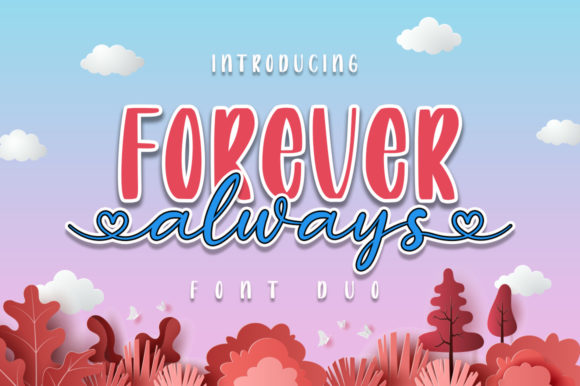
**Introducing Always Forever: The Ultimate Font for Unforgettable Wedding Invitations and More**
Embark on a typographic journey that culminates in the creation of breathtaking wedding invitations, thank-you cards, and an array of other captivating designs with Always Forever. This exquisite duo-styled handwritten font exudes a harmonious blend of charm and elegance that will elevate your creations to new heights.
**A Symphony of Handwritten Elegance**
Always Forever captivates with its graceful strokes and delicate flourishes, evoking the beauty of handwritten artistry. Each letter dances across the page with an enchanting allure, inviting your guests to immerse themselves in the warmth and intimacy of your special day.
**A Multitalented Masterpiece**
Beyond the realm of wedding invitations, Always Forever shines as a versatile font that lends its charm to a multitude of designs. Create enchanting greeting cards that convey heartfelt messages, design eye-catching logos that exude professionalism, or craft stunning business cards that reflect your unique brand identity.
**Effortless Access to Glyphs and Swashes**
Always Forever is meticulously PUA encoded, granting you effortless access to a treasure trove of glyphs and swashes. Unleash your creativity and explore a world of endless possibilities, adding intricate details and flourishes that transform your designs into works of art.
**Capture the Essence of Your Unforgettable Day**
With Always Forever, you have the power to immortalize the cherished moments of your wedding day in a way that is both timeless and deeply personal. Create invitations that become cherished keepsakes, reflecting the love and joy that surrounds your special union.
**A Font That Speaks to the Heart**
Always Forever is more than just a collection of letters; it's an expression of love, elegance, and the enduring power of handwritten artistry. Let this font guide your creative vision and create designs that resonate with your audience, leaving a lasting impression that will be treasured for years to come.